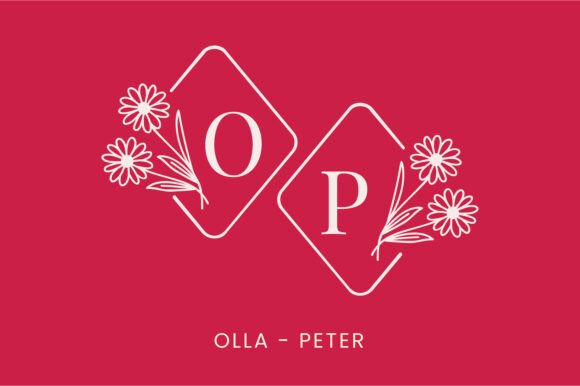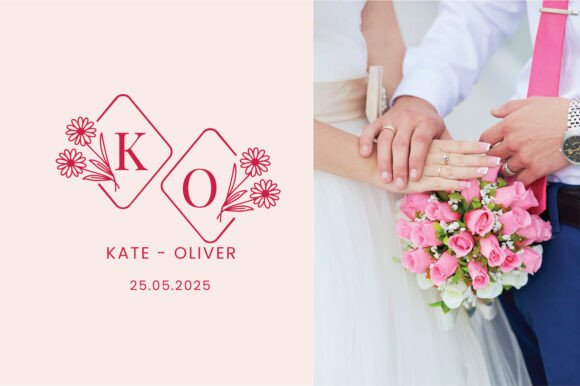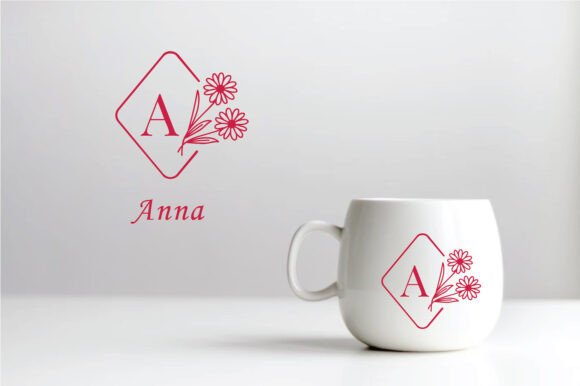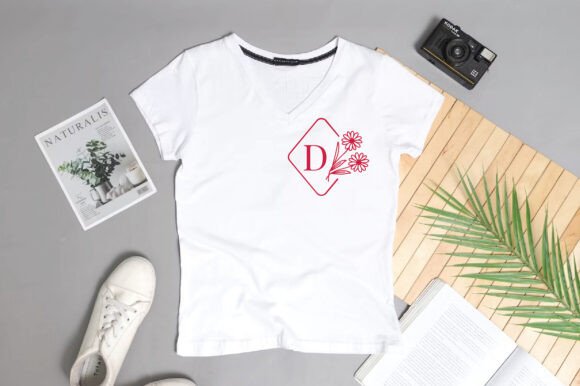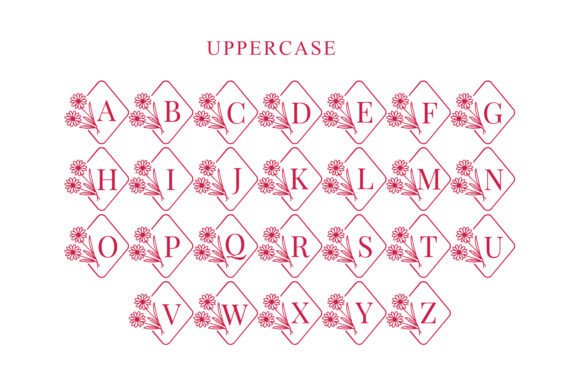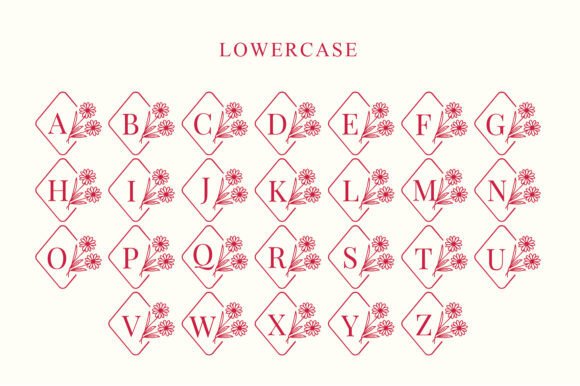
Daisy Floral Monogram Font: Elevate Your Designs with Whimsical Charm
Are you a designer or crafter looking to infuse your creative projects with a touch of elegance and charm? Look no further than the Daisy Floral Monogram Font. This exquisite decorative uppercase font is designed to bring a sense of freshness and joy to your work, making it perfect for spring-inspired designs, wedding stationery, personalized gifts, logo designs, and more.
What is Daisy Floral Monogram Font?
The Daisy Floral Monogram Font is a beautifully crafted decorative font that features delicate daisy flower accents embedded within each letter. Each letter is thoughtfully designed to evoke a sense of natural elegance, making it an ideal choice for designers who want to add a floral flair to their work. The font’s uppercase letters are perfect for creating stunning monograms, logos, and titles that are sure to leave a lasting impression.
Key Features of Daisy Floral Monogram Font
- Decorative Uppercase Letters: The font features beautifully designed uppercase letters, each adorned with delicate daisy flower accents.
- Floral Accents: The daisy flower accents are intricately designed to add a touch of natural elegance to your designs.
- Perfect for Spring-Inspired Designs: The font’s fresh and cheerful design makes it perfect for spring-inspired projects, such as Easter egg designs, Mother’s Day cards, and more.
- Wedding Stationery: The font’s elegant design makes it an excellent choice for wedding stationery, including invitations, save-the-date cards, and more.
- Personalized Gifts: Use the font to create personalized gifts, such as monogrammed tote bags, customized mugs, and more.
- Logo Designs: The font’s unique design makes it perfect for creating stunning logos that are sure to stand out.
Why Choose Daisy Floral Monogram Font?
There are many reasons why designers and crafters choose the Daisy Floral Monogram Font for their creative projects. Here are a few:
- Unique Design: The font’s delicate daisy flower accents and elegant uppercase letters make it a one-of-a-kind design that is sure to impress.
- Elegant and Charming: The font’s natural elegance and charm make it perfect for designers who want to add a touch of sophistication to their work.
- Versatile: The font can be used for a wide range of projects, from spring-inspired designs to wedding stationery and more.
The Daisy Floral Monogram Font is a beautiful and elegant decorative font that is perfect for designers and crafters who want to add a touch of charm and sophistication to their creative projects. With its delicate daisy flower accents and uppercase letters, this font is sure to impress. Whether you’re creating spring-inspired designs, wedding stationery, personalized gifts, or logo designs, the Daisy Floral Monogram Font is an excellent choice. So why wait? Download the font today and start creating stunning designs that are sure to leave a lasting impression.